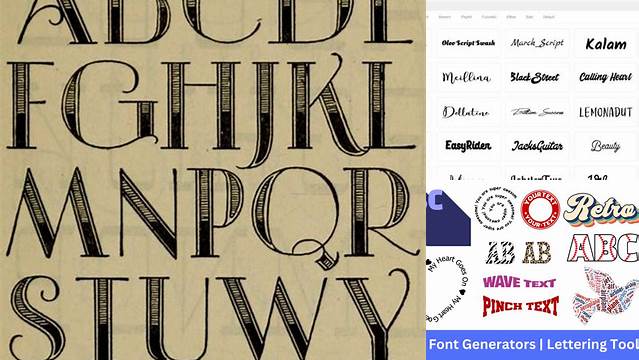
Lettering Fonts Alphabet Generator: Create Unique Typography
Are you guys looking to dive into the amazing world of lettering fonts alphabet generator? Well, you've come to the right place! In this article, we're going to explore everything about lettering, from understanding different font styles to actually generating your own unique alphabet. We will delve deep into the nuances of typography and provide you with a comprehensive understanding of how to create visually appealing and impactful lettering. Whether you're a seasoned designer or a complete beginner, you'll find something useful here. So, grab your favorite drawing tools (or your digital stylus), and let's get started!
Understanding the Basics of Lettering
Let's break down the foundations of lettering. Lettering isn't just about typing out words; it's about drawing each letter with intention and care. It’s an art form where you're crafting the very shape and structure of the letters themselves, giving you complete control over the final look and feel. The difference between lettering and typography lies in the process: typography uses pre-designed fonts, while lettering involves hand-drawing each character. This hand-drawn nature is what gives lettering its unique charm and allows for endless creative possibilities. The lettering fonts alphabet generator acts as a tool to help you bring your creative vision to life, offering a digital canvas where you can experiment with styles, strokes, and embellishments.
Fonts, on the other hand, are pre-designed sets of characters that can be typed out using a keyboard. They offer consistency and efficiency, but they don't have the same handmade quality as lettering. The beauty of lettering is that it allows for a level of customization and expressiveness that you simply can't achieve with traditional fonts. When you hand-letter, you have the freedom to alter the thickness of strokes, add flourishes, and create unique letterforms that perfectly match your artistic vision. The lettering fonts alphabet generator aims to capture this essence of hand-lettering by providing tools and resources that help you explore different styles and techniques. Think of it as your digital workshop, where you can experiment, refine, and ultimately craft lettering that truly reflects your personality and aesthetic.
Think of lettering as creating a unique piece of art every time you put pen to paper (or stylus to tablet!). It’s about the artistry, the detail, and the personal touch that you bring to each letter. This art involves understanding basic anatomy, such as the baseline, ascender, and descender, which are crucial for creating consistent and readable lettering. You also need to consider the weight and contrast of your strokes, as these elements play a significant role in the overall visual impact of your lettering. The lettering fonts alphabet generator can assist you in mastering these fundamentals by providing templates, guides, and interactive tools that help you visualize and practice different letterforms. Whether you're aiming for a classic, elegant style or a modern, edgy look, understanding these basic principles will lay the foundation for your lettering journey.
Exploring Different Lettering Styles
Okay, so you know the basics. Now, let’s get into the fun part: different lettering styles! There are tons of styles out there, each with its own personality and flair. Knowing these styles will help you decide what kind of vibe you want to create with your lettering. Understanding different lettering styles is essential for conveying the right message and aesthetic. Each style carries its own unique personality and evokes different emotions, making it crucial to choose the style that best aligns with your project's goals. The lettering fonts alphabet generator often includes a variety of style templates and examples, allowing you to explore the possibilities and find the perfect match for your needs. From the timeless elegance of script lettering to the bold statement of sans-serif lettering, there's a style for every occasion and creative vision.
First up, we have Script lettering. Think elegant, flowing lines, like calligraphy. This style is perfect for wedding invitations, thank you notes, and anything that needs a touch of sophistication. Script lettering often features connecting strokes and decorative flourishes, creating a sense of movement and grace. The lettering fonts alphabet generator can help you achieve this look by offering tools that simulate the pressure sensitivity of traditional calligraphy pens. You can experiment with different pen angles and stroke variations to create a truly authentic script lettering style. Mastering script lettering requires practice and patience, but the results are well worth the effort. The ability to create beautiful, flowing script can add a touch of elegance and professionalism to any project.
Then there’s Serif lettering. Serifs are those little feet or strokes at the end of letters. Serif fonts are often seen as classic and formal, making them great for books, newspapers, and other traditional publications. The serifs themselves contribute to the readability of the font, guiding the reader's eye along the line of text. The lettering fonts alphabet generator can provide various serif font options, from traditional styles like Times New Roman to more modern interpretations. When working with serif lettering, it's important to pay attention to the spacing between letters and words to ensure optimal readability. You can also experiment with different weights and styles within the serif category to create a unique and visually appealing look.
Next, we have Sans-serif lettering, which is clean and modern. Sans-serif fonts don't have those little feet, giving them a more minimalist look. They're often used in website design, logos, and other contemporary applications. The clean lines and simple shapes of sans-serif letters make them highly versatile and easy to read, especially on digital screens. The lettering fonts alphabet generator will offer a wide range of sans-serif styles, from the classic Helvetica to more geometric options like Futura. When using sans-serif lettering, consider the overall balance and harmony of your design. Experiment with different weights and sizes to achieve the desired effect, and pay close attention to the negative space around the letters to create a sense of clarity and openness.
We also have Blackletter, which is also known as Gothic lettering. Blackletter is bold and dramatic, with thick strokes and elaborate details. It's often used for certificates, diplomas, and other formal documents. Blackletter lettering is characterized by its dense, angular forms and intricate details, making it a striking and impactful choice for specific applications. The lettering fonts alphabet generator may include options for creating blackletter-style alphabets, allowing you to explore this historic and visually rich style. Working with blackletter requires a precise hand and a deep understanding of its unique letterforms. The thick strokes and dramatic contrast make it essential to pay attention to spacing and alignment to ensure legibility.
And don't forget Display lettering! This is where you can really let your creativity shine. Display lettering encompasses a wide range of styles, from quirky and playful to bold and impactful. This style is all about making a statement, so have fun with it! Display lettering is often used for headlines, posters, and other large-format designs where you want to grab the viewer's attention. The lettering fonts alphabet generator is an excellent tool for exploring different display lettering styles, as it allows you to experiment with various letterforms, weights, and embellishments. Whether you're aiming for a vintage look, a modern edge, or something completely unique, display lettering offers endless opportunities for creative expression.
Getting Started with a Lettering Fonts Alphabet Generator
Alright, let’s talk about tools! A lettering fonts alphabet generator is basically a software or online tool that helps you create different lettering styles. These generators often provide templates, guides, and customizable elements that make the lettering process easier and more efficient. Whether you're a beginner just starting to explore lettering or a seasoned professional looking to streamline your workflow, a lettering fonts alphabet generator can be a valuable asset in your creative toolkit. These tools can range from simple online applications that allow you to type in text and apply different styles to more sophisticated software that offers advanced customization options and features.
These tools usually work by offering a range of pre-designed alphabets and letterforms that you can customize to fit your needs. Many generators also allow you to adjust the thickness of strokes, add flourishes, and experiment with different spacing options. This level of customization is what sets a lettering fonts alphabet generator apart from traditional font software. With a font software, you're limited to the characters and styles that have already been created. But with a generator, you have the flexibility to create entirely new letterforms and styles that are uniquely your own.
Some generators even have features that mimic the look and feel of hand-lettering. These features might include options for adding subtle variations in stroke thickness or creating a slightly imperfect, hand-drawn look. This can be a great way to add a personal touch to your lettering while still benefiting from the efficiency of digital tools. The lettering fonts alphabet generator isn't just about making the process easier; it's also about inspiring creativity and helping you explore new possibilities in lettering. By providing a platform for experimentation and customization, these tools can help you develop your own unique lettering style and bring your creative vision to life.
Key Features to Look For in a Generator
So, what should you look for in a good lettering fonts alphabet generator? There are a few key features that can make a big difference in your lettering experience. First, consider the range of styles offered. A good generator should have a variety of styles to choose from, including script, serif, sans-serif, and display styles. This variety allows you to experiment with different looks and find the perfect style for your project. The more styles a generator offers, the more creative possibilities you'll have at your fingertips. Whether you're looking for a classic and elegant script or a bold and modern sans-serif, having a diverse selection of styles is essential for a versatile lettering tool.
Next up is customization options. Can you adjust the stroke thickness? Add flourishes? Change the spacing? The more customizable the generator, the more control you have over the final result. Customization is where a lettering fonts alphabet generator truly shines. The ability to fine-tune every aspect of your lettering, from the thickness of the strokes to the spacing between letters, is what allows you to create truly unique and personalized designs. Look for generators that offer a wide range of customization options, including the ability to adjust letter height, width, and slant. The more control you have over these parameters, the more closely you can match your lettering to your creative vision.
Another important feature is user-friendliness. Is the generator easy to use? Is the interface intuitive? You don't want to spend hours figuring out how to use the tool. You want to be able to jump in and start creating! A user-friendly interface is crucial for a smooth and enjoyable lettering experience. The best lettering fonts alphabet generators are designed with simplicity in mind, allowing you to navigate the features and options with ease. Look for generators that offer clear instructions, helpful tooltips, and a well-organized layout. A clean and intuitive interface will help you focus on the creative aspects of lettering, rather than getting bogged down in technical complexities.
And finally, check for export options. Can you export your lettering in a format that you can use in other programs? Common formats include PNG, SVG, and JPEG. The ability to export your lettering in a variety of formats is essential for using it in different projects and applications. PNG files are great for web graphics, while SVG files are ideal for vector-based designs that can be scaled without losing quality. JPEG files are a good choice for images that need to be compressed for storage or sharing. A lettering fonts alphabet generator that offers a range of export options will give you the flexibility to use your lettering in a variety of contexts, from digital designs to print materials.
Tips and Tricks for Beautiful Lettering
Okay, you've got your tools, you know your styles… now let’s talk about some tips and tricks to make your lettering really shine! Remember, practice makes perfect, but these little pointers can help you get there faster. First off, pay attention to spacing. The space between letters and words can make a huge difference in readability and overall appearance. Proper spacing is crucial for creating legible and visually appealing lettering. Too little space can make the letters feel cramped and difficult to read, while too much space can make the words feel disconnected. A good rule of thumb is to aim for consistent spacing between letters and words, allowing the eye to easily flow from one character to the next. The lettering fonts alphabet generator can often provide tools and guides to help you achieve optimal spacing, ensuring that your lettering is both beautiful and functional.
Another tip is to vary your stroke thickness. This can add a lot of visual interest to your lettering. Think about where you want to create emphasis and use thicker strokes in those areas. Varying stroke thickness is a key technique for adding depth and dimension to your lettering. Thicker strokes can create a sense of boldness and emphasis, while thinner strokes can add delicacy and elegance. Experimenting with different stroke weights can help you achieve a variety of effects, from a strong and impactful look to a light and airy feel. The lettering fonts alphabet generator often allows you to adjust stroke thickness with precision, giving you the ability to fine-tune the look of your lettering and create visually dynamic designs.
Add flourishes! These little decorative elements can really take your lettering to the next level. But don't overdo it! A few well-placed flourishes can add a touch of elegance and personality, but too many can make your lettering look cluttered. Flourishes are those extra swirls, loops, and decorative elements that can add a touch of flair to your lettering. They can be used to emphasize certain letters or words, create a sense of movement, or simply add visual interest to your design. However, it's important to use flourishes sparingly and strategically. A few well-placed flourishes can enhance the overall look of your lettering, but too many can make it look busy and distracting. The lettering fonts alphabet generator may offer a variety of flourish options, allowing you to experiment with different styles and find the perfect balance for your lettering.
And finally, practice, practice! The more you letter, the better you'll get. Try different styles, experiment with different tools, and don't be afraid to make mistakes. The key to mastering lettering is consistent practice and experimentation. The more you practice, the more comfortable you'll become with the different techniques and styles. Try setting aside a few minutes each day to practice lettering, even if it's just sketching a few letters or words. Experiment with different tools, such as pens, pencils, and digital styluses, to find what works best for you. And don't be afraid to make mistakes – they're a natural part of the learning process. The lettering fonts alphabet generator can be a valuable tool for practicing, as it allows you to experiment with different styles and techniques without wasting paper or materials. By using the generator to practice regularly, you can develop your skills and create beautiful lettering that reflects your unique style.
Conclusion: Unleash Your Inner Lettering Artist
So, there you have it! Everything you need to know to get started with lettering fonts alphabet generator. Remember, lettering is all about creativity and expression, so have fun with it! Experiment with different styles, try new things, and don’t be afraid to make mistakes. The most important thing is to enjoy the process and let your creativity flow. The world of lettering is vast and exciting, offering endless opportunities for artistic expression and personal growth. Whether you're a seasoned artist or a complete beginner, there's always something new to learn and explore. So, dive in, experiment, and unleash your inner lettering artist! The lettering fonts alphabet generator is your tool, the styles are your palette, and your imagination is the only limit. Happy lettering, guys! This art allows you to communicate messages with style, flair, and a personal touch that no pre-made font can match. So, go ahead, grab your tools, and start creating your own beautiful lettering today!